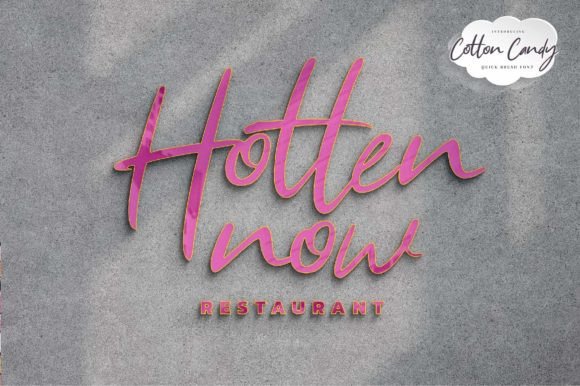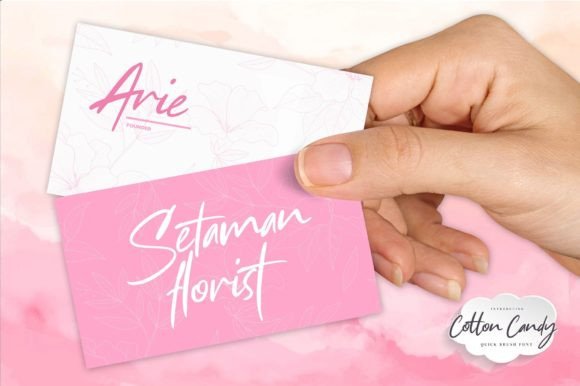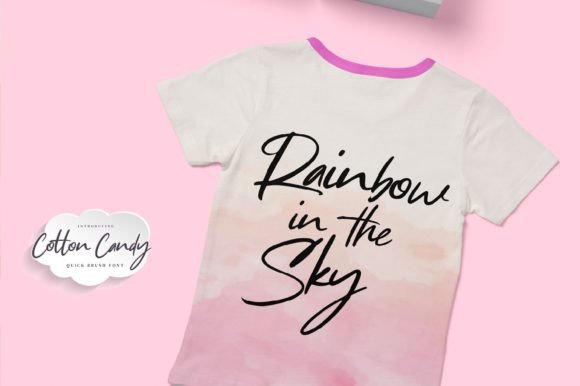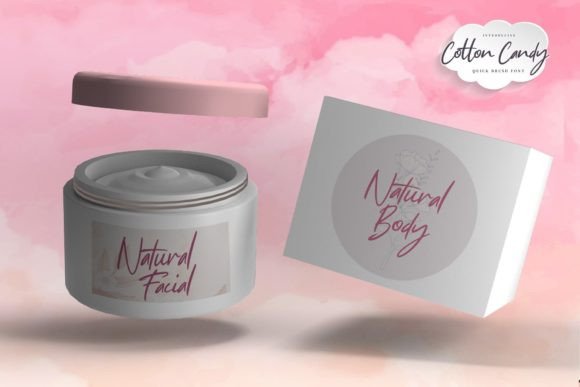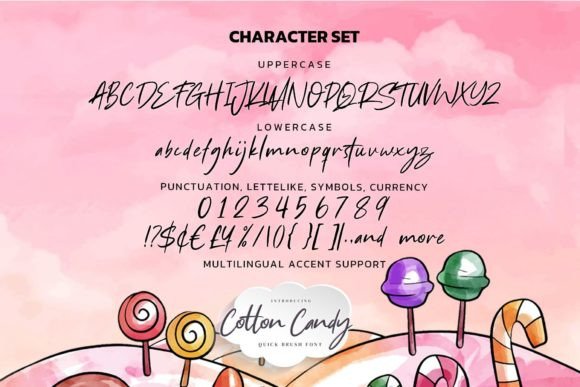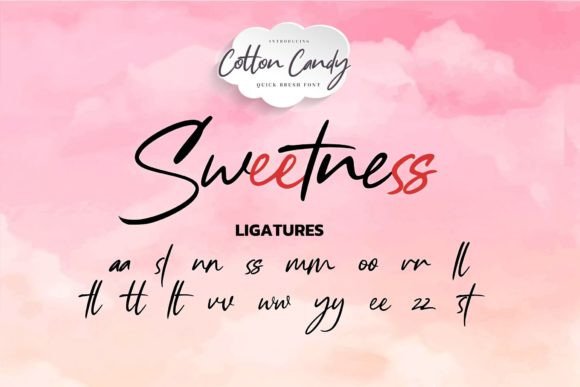
Cotton Candy Font: The Sweetest Addition to Your Design Projects
Are you looking for a font that adds a touch of whimsy and playfulness to your design projects? Look no further than the Cotton Candy font! This quick brush script font is perfect for designers and crafters who want to add a dash of personality to their work. With its naturally textured style, clear appearance, and dramatic movement, Cotton Candy is sure to make your designs stand out.
What Makes Cotton Candy Font So Special?
Cotton Candy is a unique font that boasts a range of characteristics that make it perfect for a variety of design projects. Here are just a few of the features that make this font so special:
- Naturally Textured Style: The Cotton Candy font has a beautiful, natural texture that gives it a hand-crafted feel. This texture adds depth and interest to your designs, making them more visually appealing.
- Clear Appearance: Despite its textured style, the Cotton Candy font is incredibly clear and easy to read. This makes it perfect for use in a variety of design projects, from logos and headings to body text and captions.
- Dramatic Movement: The Cotton Candy font has a sense of movement and energy that is sure to capture the attention of your audience. This makes it perfect for use in designs that need to stand out, such as advertisements, product packaging, and event invitations.
The Cotton Candy font is incredibly versatile, making it perfect for use in a wide range of design projects. Here are just a few ideas to get you started:
- Logos: The Cotton Candy font is perfect for creating unique and memorable logos that will help your brand stand out.
- Printed Quotes: Add a touch of personality to your printed quotes with the Cotton Candy font. This font is perfect for creating inspirational quotes, motivational posters, and more.
- Invitations and Cards: The Cotton Candy font is perfect for creating beautiful and unique invitations and cards for special occasions, such as weddings, birthdays, and holidays.
- Product Packaging: Add a touch of whimsy to your product packaging with the Cotton Candy font. This font is perfect for creating labels, tags, and other packaging materials that need to stand out.
- Headers and Watermarks: The Cotton Candy font is perfect for use in headers and watermarks on photography and other designs. This font adds a touch of personality and sophistication to any design.
- Advertisements and Product Designs: The Cotton Candy font is perfect for use in advertisements and product designs that need to stand out. This font is sure to capture the attention of your audience and leave a lasting impression.
- Stationery and Wedding Designs: The Cotton Candy font is perfect for creating beautiful and unique stationery and wedding designs. This font adds a touch of elegance and sophistication to any design.
Why Designers and Crafters Love the Cotton Candy Font
Designers and crafters love the Cotton Candy font for a variety of reasons. Here are just a few:
- Easy to Use: The Cotton Candy font is incredibly easy to use, even for designers and crafters who are new to working with fonts.
- High-Quality Design: The Cotton Candy font is designed to high-quality standards, ensuring that it will look great in any design project.
- Unique and Versatile: The Cotton Candy font is unique and versatile, making it perfect for use in a wide range of design projects.
- Adds a Touch of Personality: The Cotton Candy font adds a touch of personality and whimsy to any design project, making it perfect for designers and crafters who want to create unique and memorable designs.
In conclusion, the Cotton Candy font is a must-have for designers and crafters who want to add a touch of whimsy and playfulness to their design projects. With its naturally textured style, clear appearance, and dramatic movement, this font is perfect for use in a wide range of design projects, from logos and headings to body text and captions. Whether you’re a seasoned designer or a crafter just starting out, the Cotton Candy font is sure to become a favorite in your design arsenal.